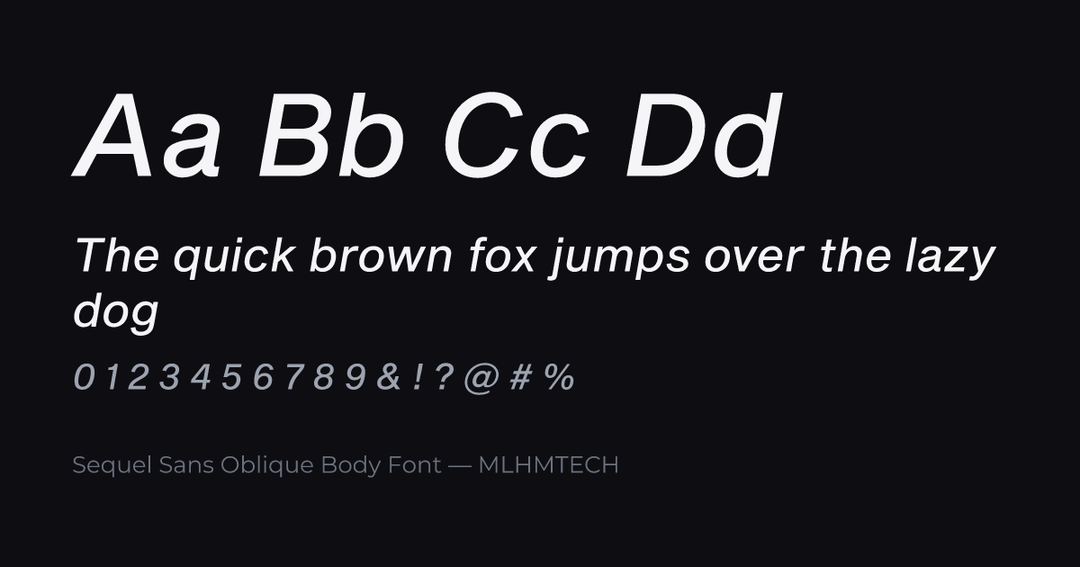
Sequel Sans Oblique Body Font
Sequel Sans Oblique Body is a modern, clean sans-serif font with an oblique (slanted) style, ideal for body text and editorial layouts.
Sequel Sans Oblique Body is a versatile sans-serif typeface designed for readability and contemporary aesthetics. Its oblique cut adds a dynamic slant, making it suitable for headlines, subheadings, and body copy that requires a touch of sophistication.
This font is part of the Sequel Sans family, known for its geometric forms and excellent legibility. The oblique style provides a subtle emphasis without compromising on clarity, making it a great choice for branding, web design, and print materials.